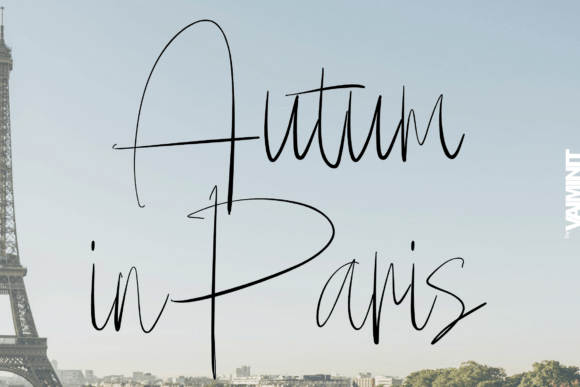
Discover the Charm of Autumn in Paris Font: Elevate Your Designs with Cozy, Romantic Feels
As the seasons change, and fall arrives, it’s the perfect time to infuse your designs with the cozy, romantic feels of Autumn in Paris Font. This beautiful, handwritten font is designed to bring a personal, warm touch to your projects, making it an ideal choice for anyone looking to add a touch of elegance and sophistication. In this article, we’ll dive into the world of Autumn in Paris Font, exploring its unique features, and why it’s the perfect addition to your design toolkit.
Why You’ll Love Autumn in Paris Font
- π Romantic AF: Perfect for wedding invites, love notes, or anything that needs a little extra heart.
- π Crazy Versatile: From social media posts to product labels, itβs got you covered.
- β¨ Custom Touches: Packed with ligatures and accents that make your text look like it was written just for you.
The Benefits of Using Autumn in Paris Font
Autumn in Paris Font is more than just a beautiful font – it’s a design solution that can elevate your projects and make them stand out. With its natural flow and effortless charm, this font is perfect for:
- Wedding and Event Invitations: Add a touch of romance and whimsy to your wedding invites, save-the-dates, and other event materials.
- Social Media Posts: Bring a personal touch to your social media posts, making them more engaging and shareable.
- Product Labels and Packaging: Stand out on store shelves with custom product labels and packaging that exudes warmth and personality.
- Branding and Marketing Materials: Infuse your brand with a cozy, autumnal feel that resonates with your audience.
Endless Design Possibilities with Autumn in Paris Font
One of the best things about Autumn in Paris Font is its versatility. This font can be used in a wide range of design projects, from:
- Digital and Print Materials: Use Autumn in Paris Font in digital and print materials, such as brochures, flyers, and business cards.
- Web Design: Add a personal touch to your website with Autumn in Paris Font, making it more inviting and engaging.
- Stationery and Gift Tags: Create beautiful, custom stationery and gift tags that make your correspondence and gifts extra special.
The Unique Style of Autumn in Paris Font
Autumn in Paris Font is a handwritten font that exudes a sense of natural flow and effortless charm. Its unique style is characterized by:
- Ligatures and Accents: The font is packed with ligatures and accents that make your text look like it was written just for you.
- Romantic and Whimsical: Autumn in Paris Font has a romantic and whimsical feel that’s perfect for designs that require a personal touch.
Tips and Tricks for Using Autumn in Paris Font
To get the most out of Autumn in Paris Font, here are some tips and tricks to keep in mind:
- Mix and Match: Experiment with different font sizes, colors, and styles to create a unique look.
- Add a Personal Touch: Use Autumn in Paris Font to add a personal touch to your designs, making them more relatable and engaging.
- Play with Ligatures: Take advantage of the font’s ligatures and accents to add an extra layer of personality to your text.
Autumn in Paris Font is a beautiful, handwritten font that’s perfect for anyone looking to add a touch of coziness and romance to their designs. With its natural flow, effortless charm, and versatility, this font is sure to become a staple in your design toolkit. Whether you’re creating wedding invites, social media posts, or product labels, Autumn in Paris Font is the perfect choice for designs that require a personal touch.